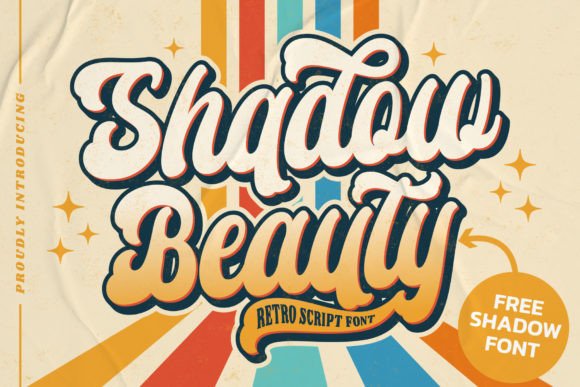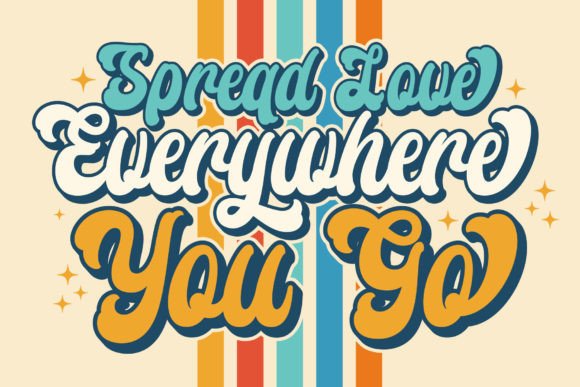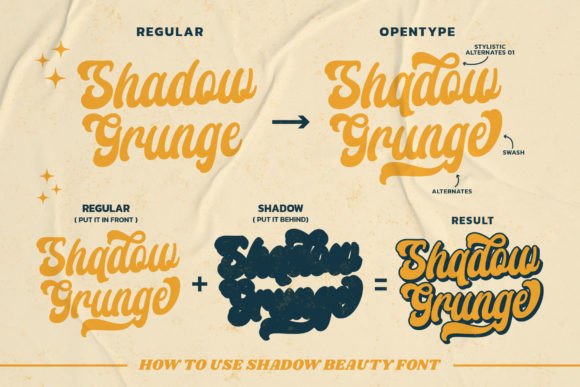
Shadow Beauty Font: Groovy Retro Script for Logos & DIY!
About the Shadow Beauty Font
Meet Shadow Beauty Font, a stunning font that brings a touch of elegance and professionalism to any design. Shadow Beauty is a cool, vintage-style script font. Use it to add that special retro and vintage touch to any design idea! It can be used for logos, branding, invitations, stationery, wedding designs, social media posts, and much more!
Shadow Beauty Font Usage Examples
Shadow Beauty Font Example